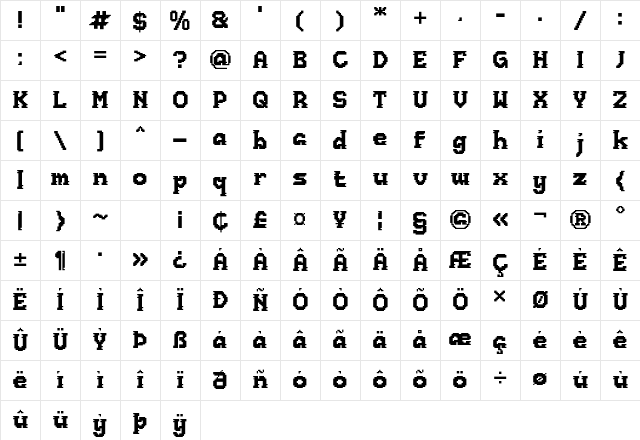
Pixelmax Regular Free Font
Pixelmax Regular
Foundry: Fitrah Type
Designer: Moch. Fitrah Hidayat
Design Context for Pixelmax
Pixelmax is rooted in pixel-grid construction, making it a natural fit for game UI, retro computing aesthetics, and digital nostalgia projects.
Pro Tip: Use Pixelmax at sizes that align with its pixel grid for the sharpest rendering - scaling to non-integer multiples can introduce unwanted blur.